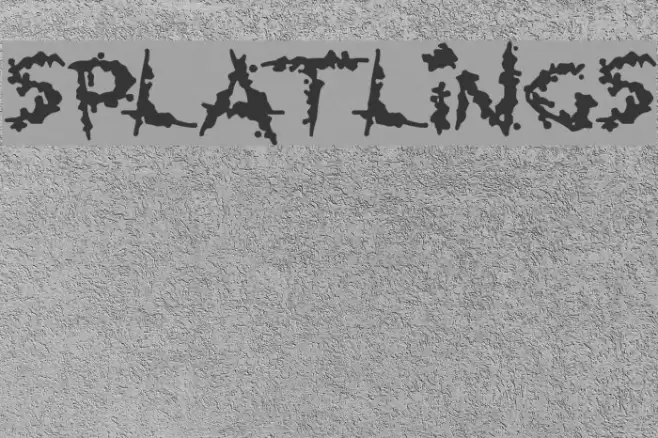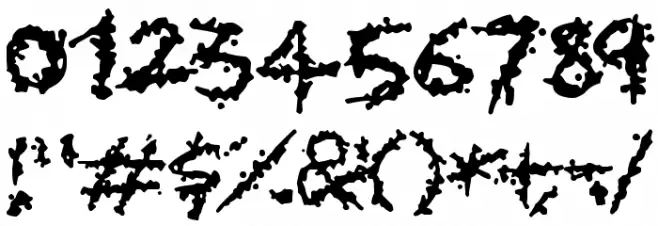
Splatlings Font
Splatlings Description
This font features a unique, splattered design that gives the impression of ink or paint droplets scattered across the characters. Each letter and number is crafted with irregular edges and varying thickness, creating a dynamic and chaotic appearance. The style is reminiscent of graffiti or street art, with a playful yet edgy vibe. The characters maintain a consistent height, but the irregularities in the strokes add a sense of movement and energy. This font is highly decorative and stands out due to its unconventional design, making it suitable for eye-catching displays.
A splattered, graffiti-like font with irregular, dynamic strokes from Uncategorized fonts.
- Proposed Projects: Ideal for street art-themed projects, edgy posters, album covers, or any design requiring a bold, artistic flair.